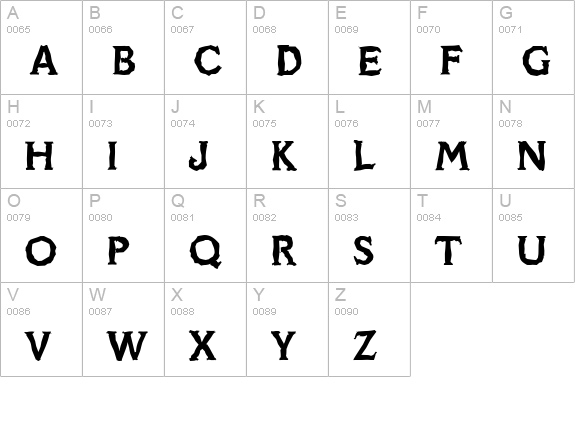
VeracruzRandom-Bold is a strong, high-contrast variant in the VeracruzRandom typeface family \xE2\x80\x94 well suited to headlines, attention-grabbing titles, and strong calls-to-action.
VeracruzRandom-Bold is a stunning and versatile display font that exudes a sense of boldness and modernity. With its unique and eye-catching design, this font is perfect for making a statement in various design projects. The strong and dynamic strokes of VeracruzRandom-Bold make it ideal for headlines, posters, logos, and other creative works that require a touch of sophistication and impact. What makes VeracruzRandom-Bold even more appealing is that it is available for free download at FontsMarket.com. This means that you can easily access this fantastic font and use it in your projects without any cost. So don't miss out on the opportunity to enhance your designs with the striking elegance of VeracruzRandom-Bold - download it now and let your creativity shine!